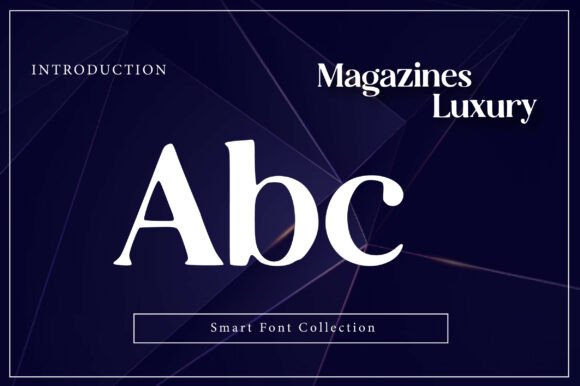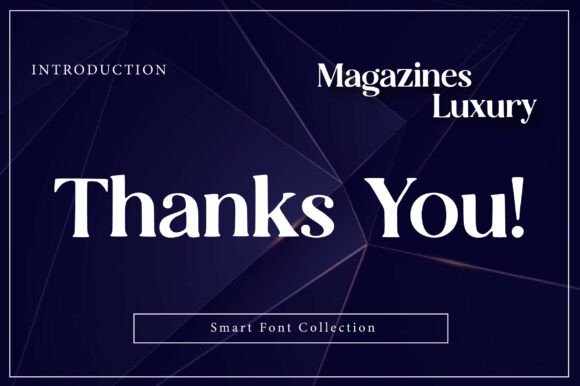
Introduction to Magazines Luxury Font Font
Fonts play a crucial role in design, and the Magazines Luxury Font font is a typeface that brings both character and versatility to any project. Whether you’re working on a branding project, a website, or a print design, the Magazines Luxury Font font offers a unique style that can elevate your work.
Luxury Magazine Serif is an elegant and high-end serif typeface inspired by premium fashion magazines and editorial design.
With its refined curves, balanced contrast, and sophisticated ball terminals, this font delivers a timeless luxury feel Designed for headlines and display use, Luxury Magazine Serif works perfectly for fashion magazines, luxury branding, logos, editorials, packaging, invitations, and upscale marketing materials.
Key Features of Magazines Luxury Font Font
Why Choose Magazines Luxury Font Font?
The Magazines Luxury Font font is more than just a typeface – it’s a design tool that helps you communicate your message with style and clarity. Its unique character set and versatile design make it suitable for a wide range of applications, from elegant invitations to bold headlines.
With its carefully crafted letterforms and balanced proportions, the Magazines Luxury Font font ensures readability and visual appeal across all mediums.
What makes Magazines Luxury Font font special?
The Magazines Luxury Font font stands out with its unique design, exceptional readability, and versatility across various design applications.